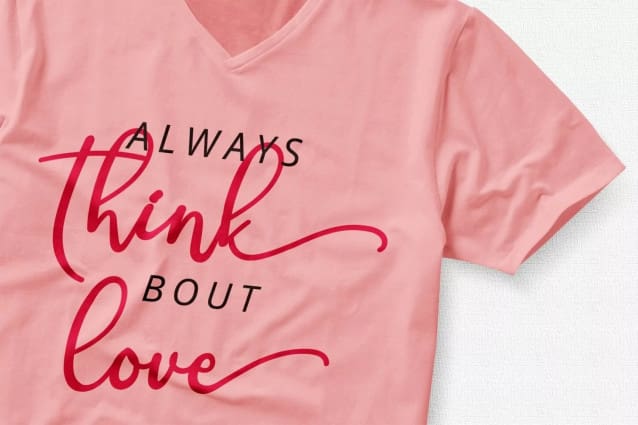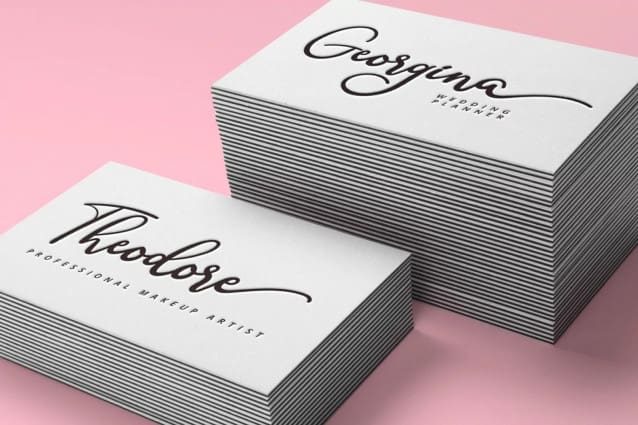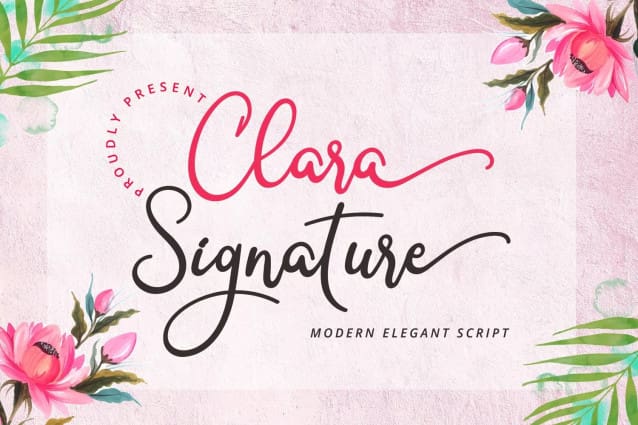
Clara Signature Font
Clara Signature is simple and sweet handwritten font. This is sweet, tiny, and elegant. This font is so versatile for wide ranges of design projects, such as wedding invitation, branding, logo, social media quotes, and others.